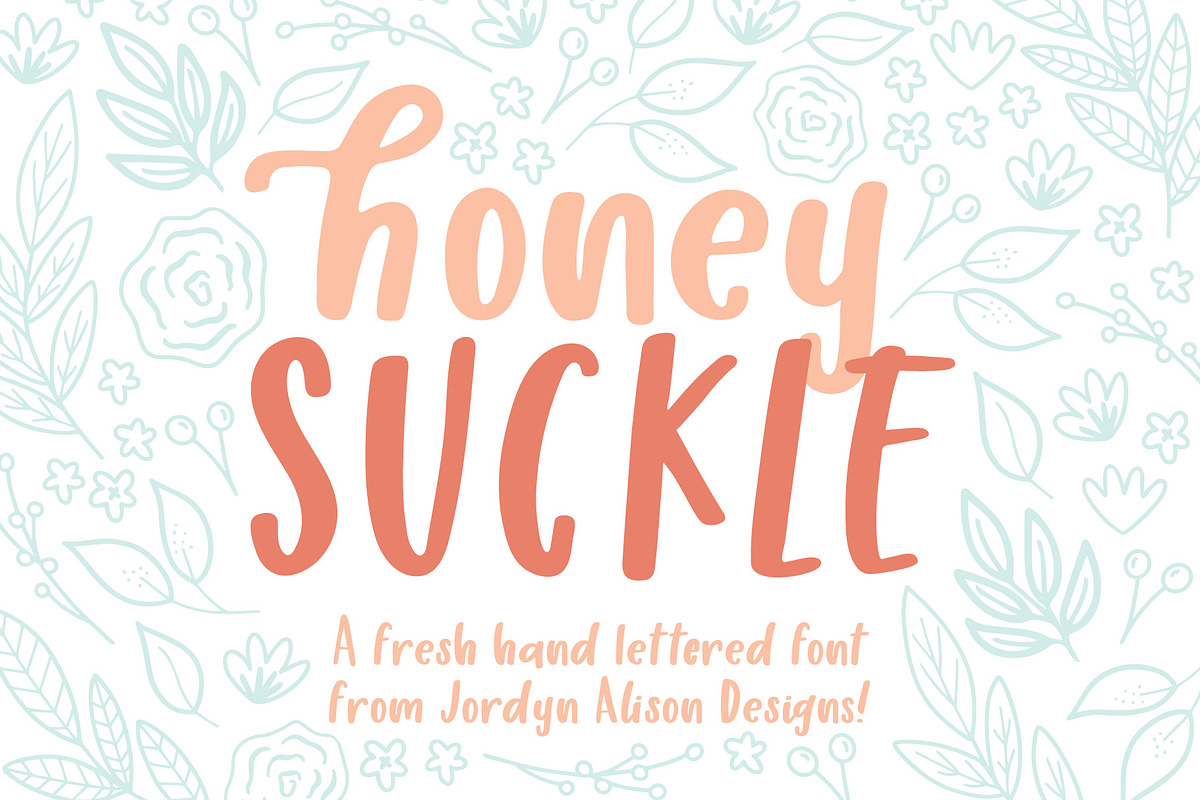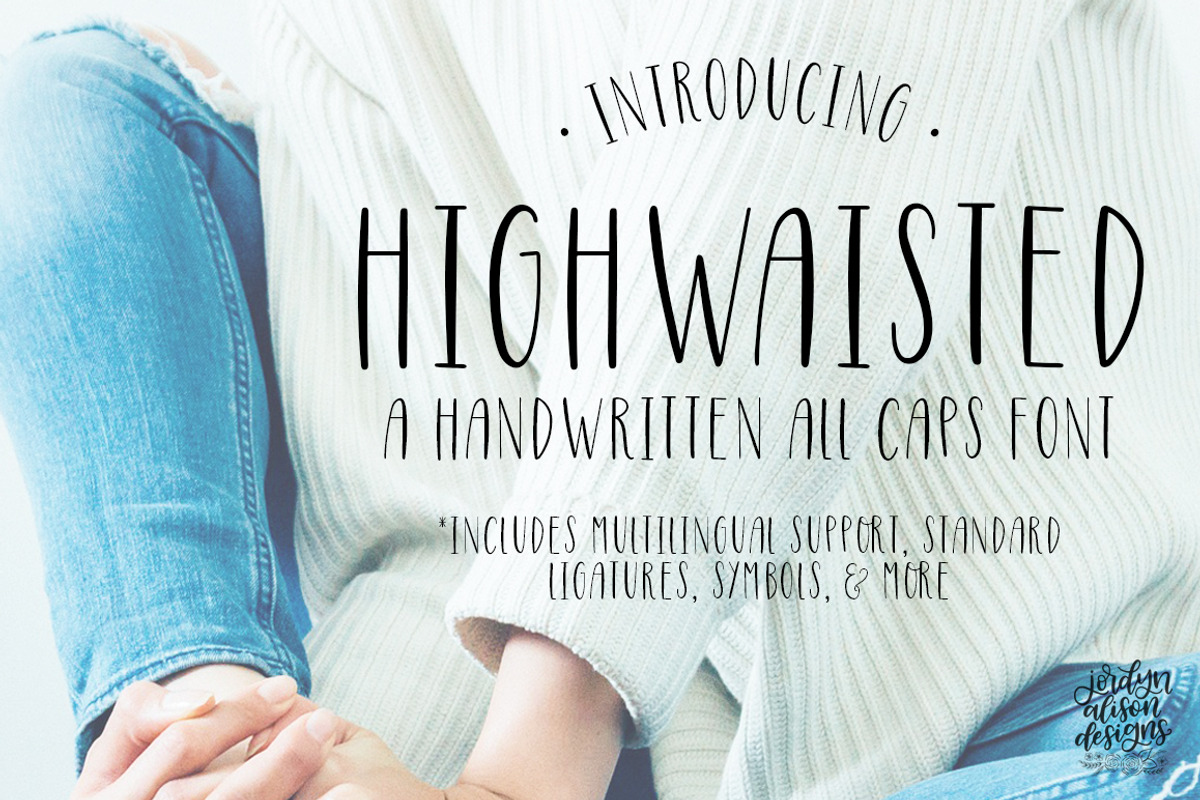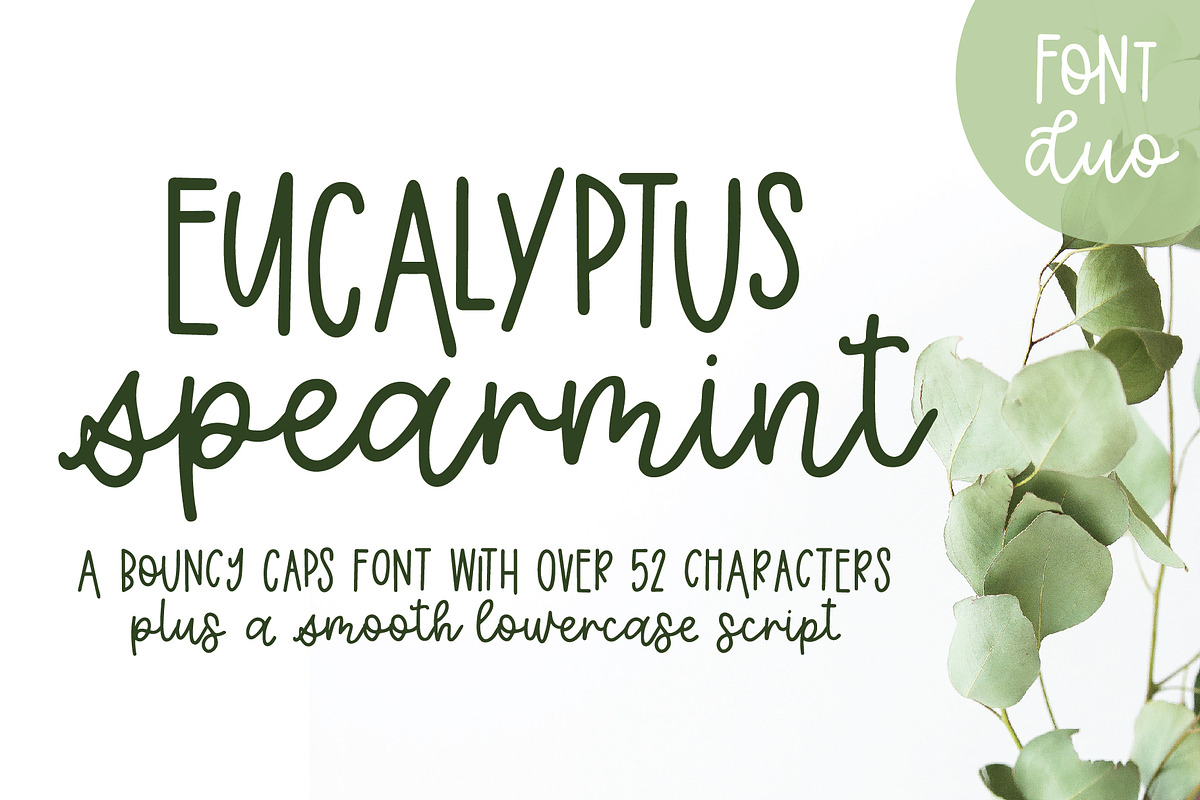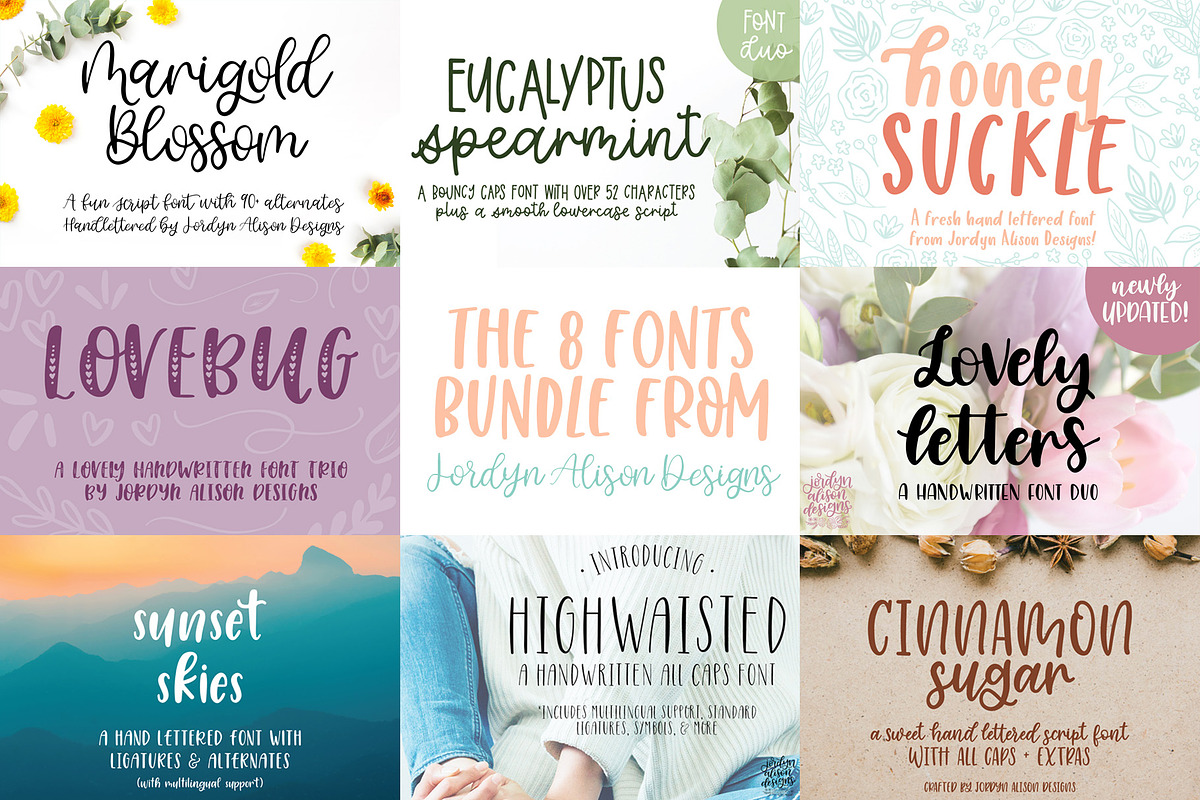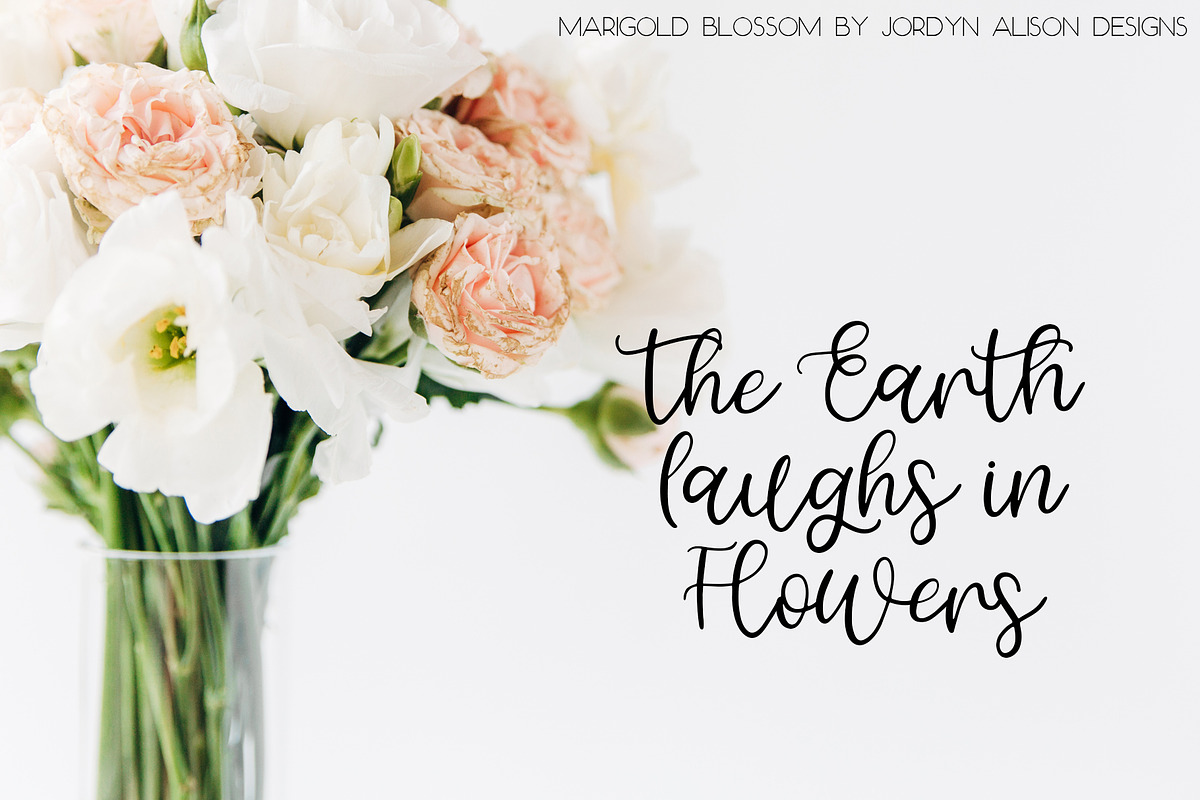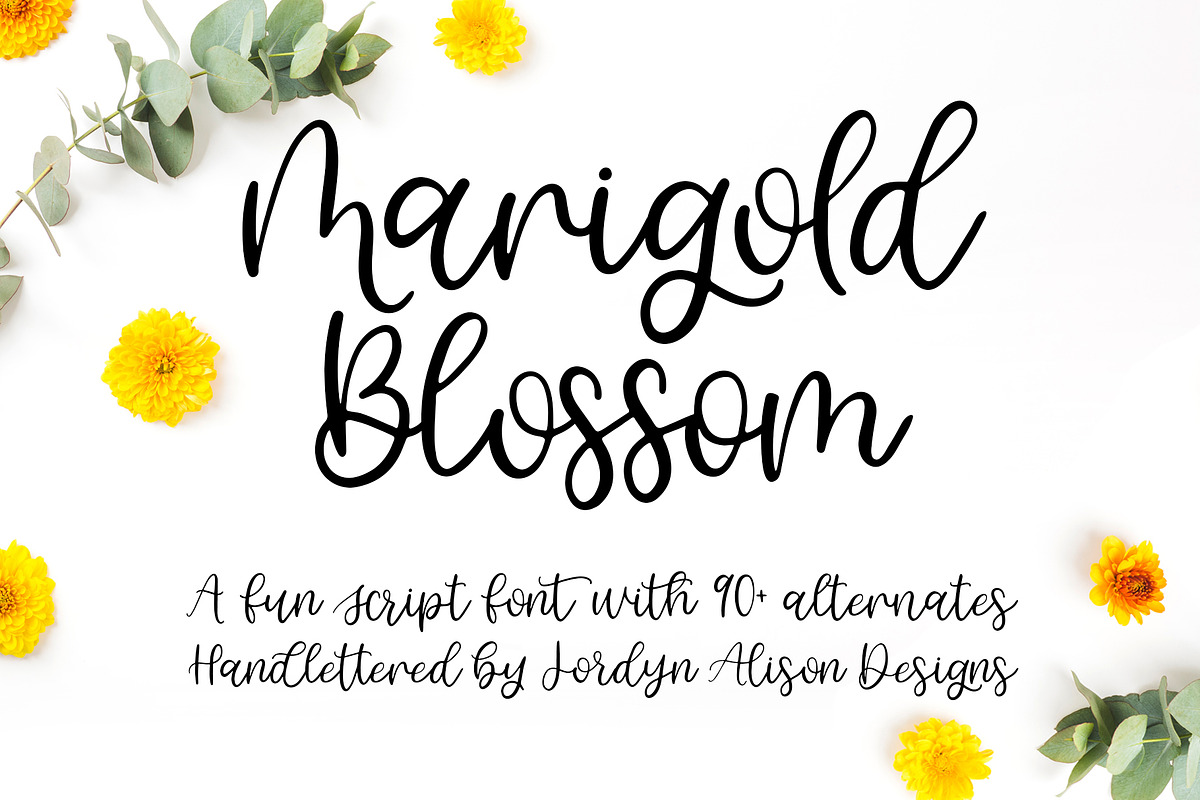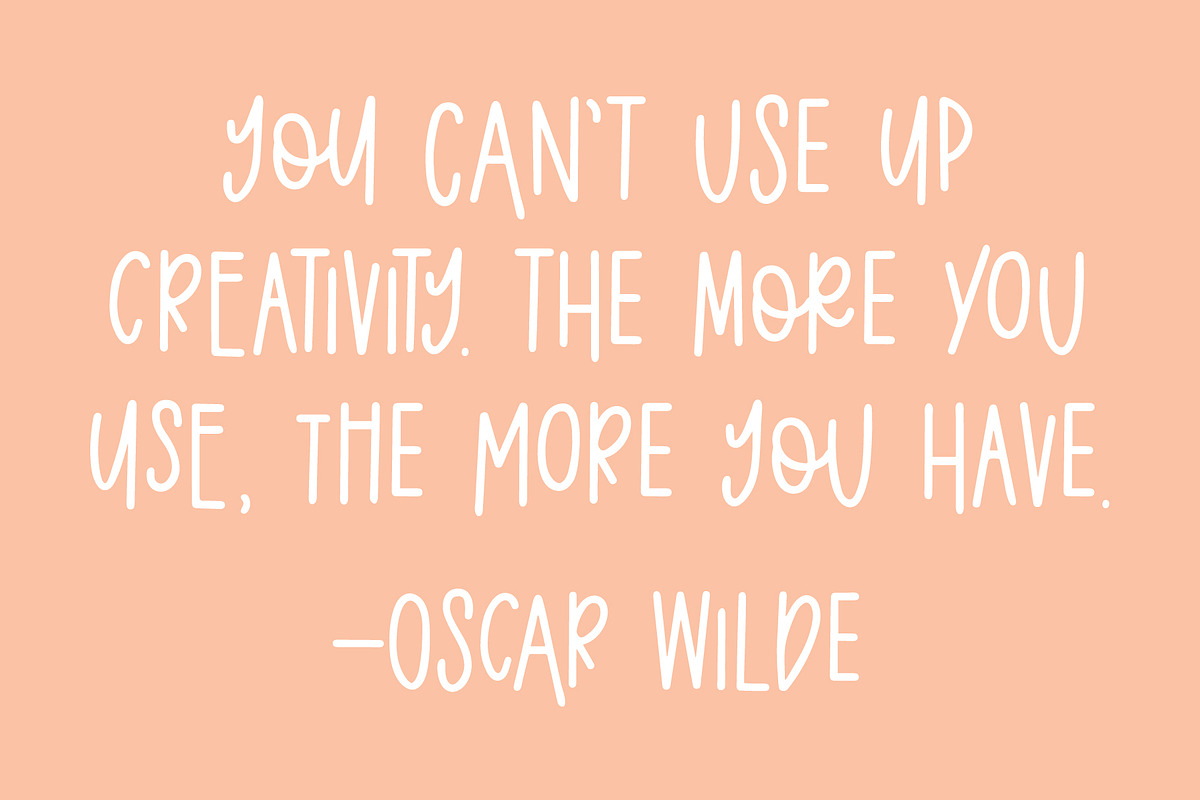
The 8 Fonts Bundle
Introducing the 8 Fonts Bundle from Jordyn Alison Designs! Bundle all 8 of my fonts together for more than 50% savings! All fonts from Jordyn Alison Designs are handlettered.
- Lovely Letters Script Font
- Highwaisted Skinny Caps Font
- Sunset Skies Sans Serif Font
- Lovebug Hearts Font Trio
- Cinnamon Sugar Script Font
- Honey Suckle Sans Serif Font
- Eucalyptus Spearmint Monoline Script Font Duo
- NEW! Marigold Blossom Script Font